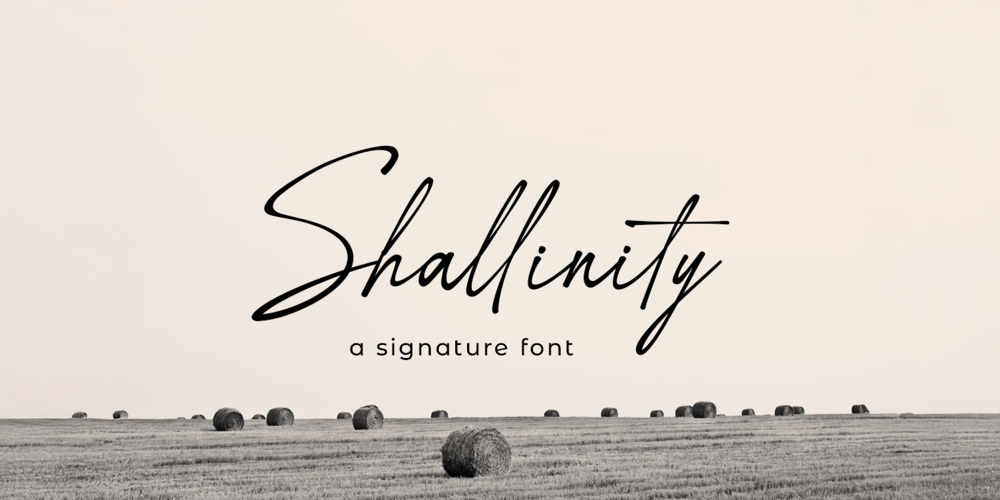
Shallinity Font Family was designed by Dani Irawan and published by GraphTypika. Shallinity contains 1 styles and family package options. Elevate your designs with Shellinity – Signature Font, a sleek and sophisticated typeface that exudes elegance and charm. Featuring smooth, flowing strokes and a hand-crafted feel, this font is perfect for branding, invitations, logos, and more. With its modern signature style and versatile appeal, Shellinity adds a personal and professional touch to any creative project.